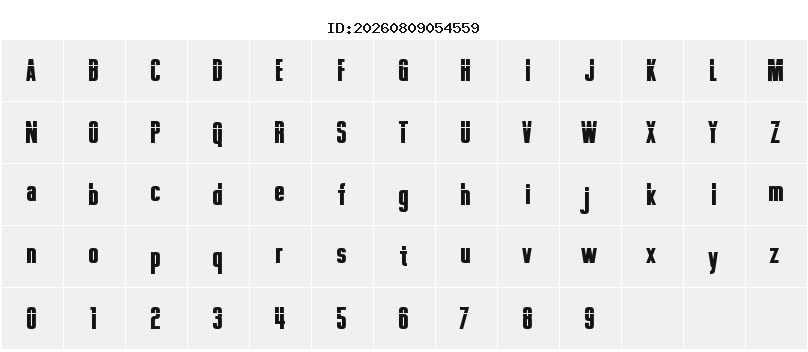
Phelps Preview
• Font Name: Phelps
• Font ID: Phelps Bold:Version 1.00
• Full Font Name: Phelps Bold
• Version: Version 1.00 March 1, 2016, initial release
• PostScript Name: Phelps-Bold
• Character Count: 258
• Designer: Neale Davidson
• Manufacturer: Pixel Sagas
About Phelps.otf
Phelps.otf is a modern, elegant sans-serif font designed for ultimate readability and visual harmony. Perfect for branding, headlines, web design, and print materials.